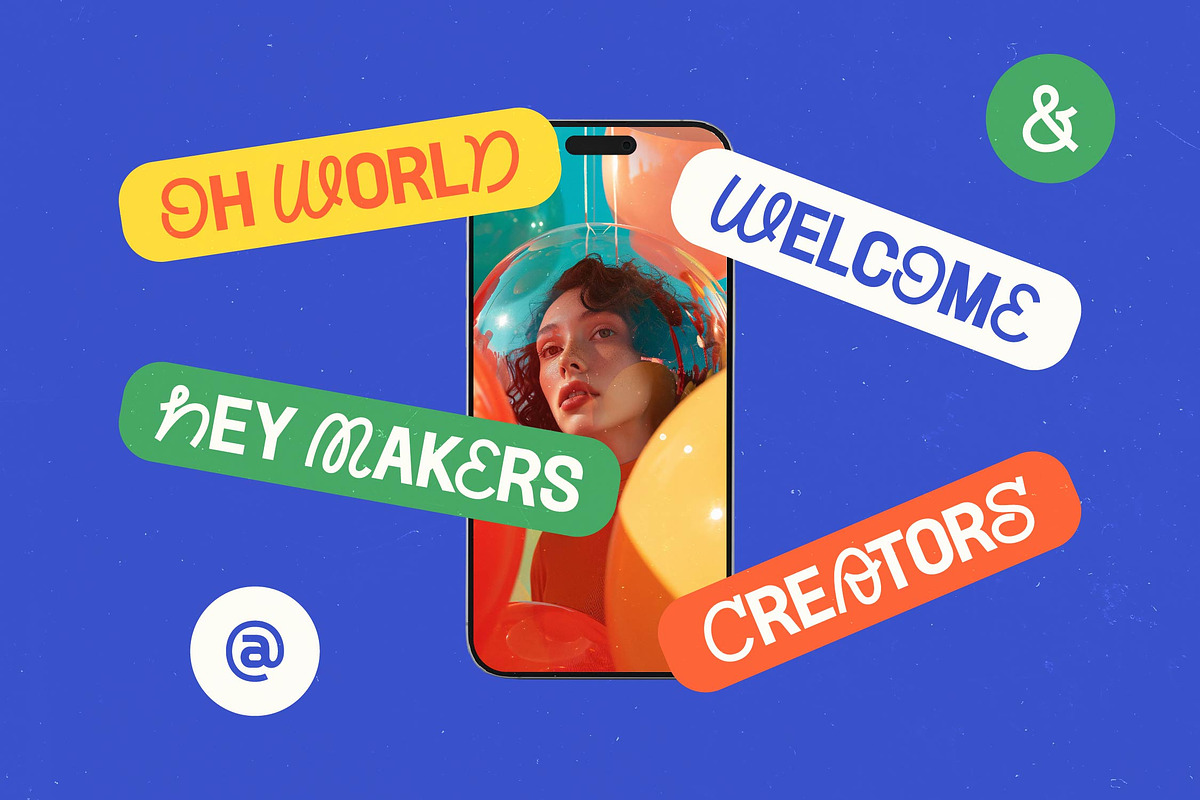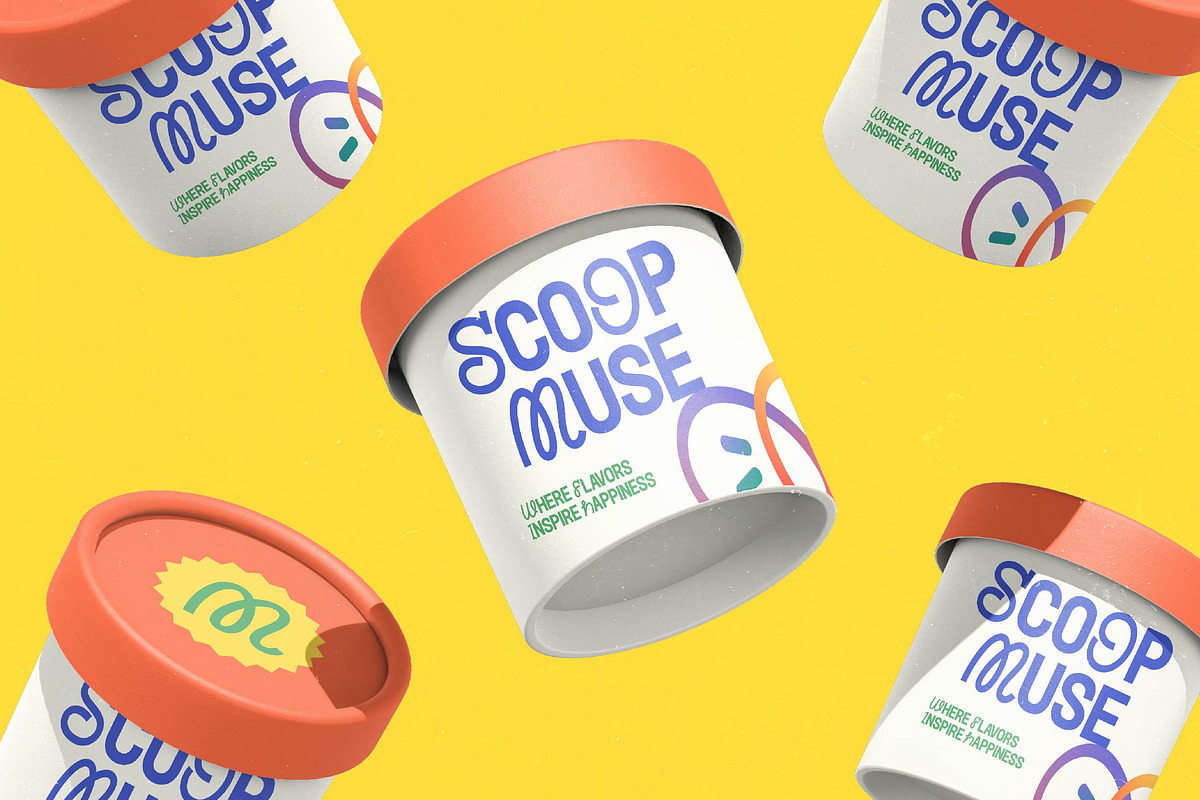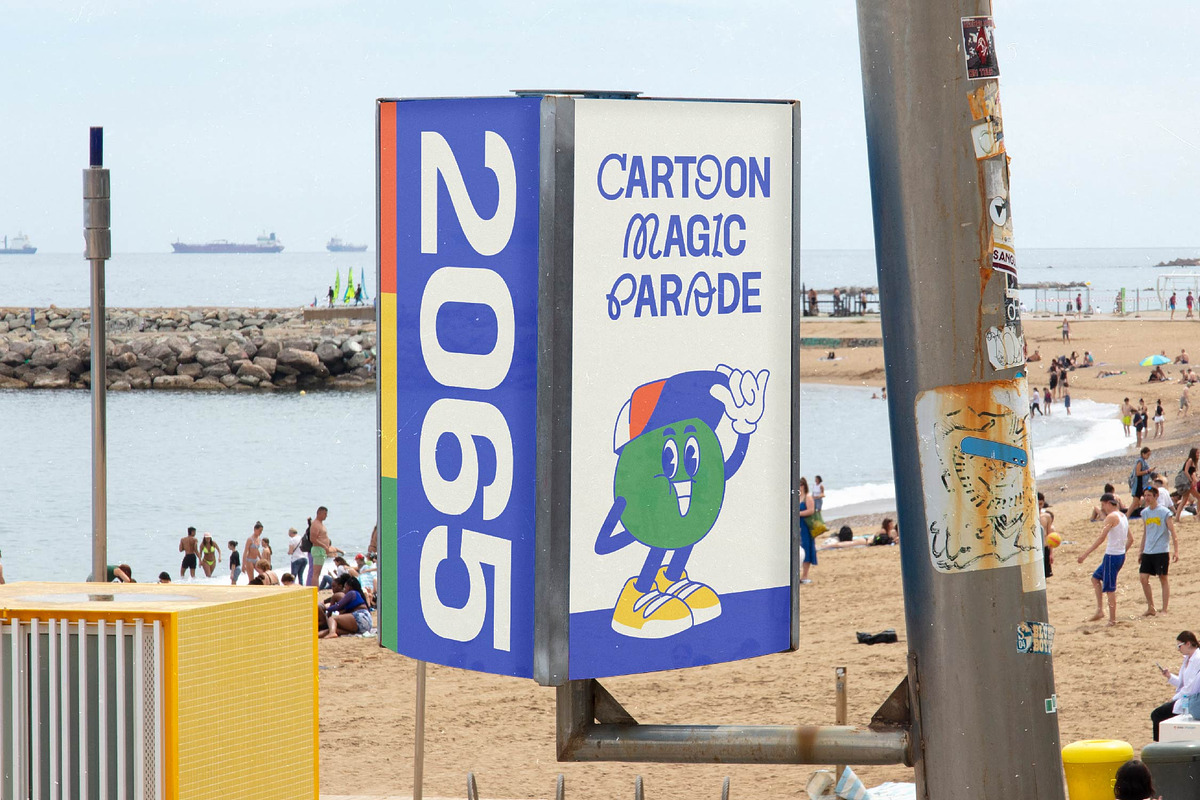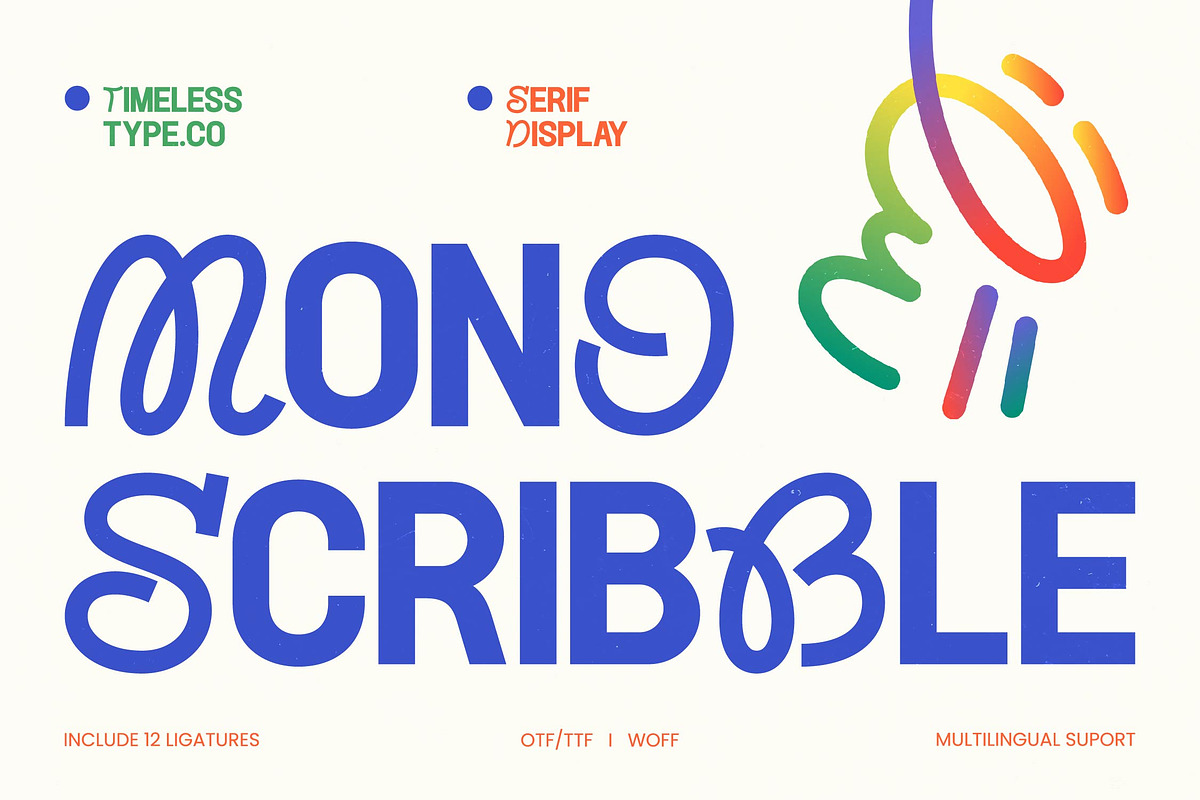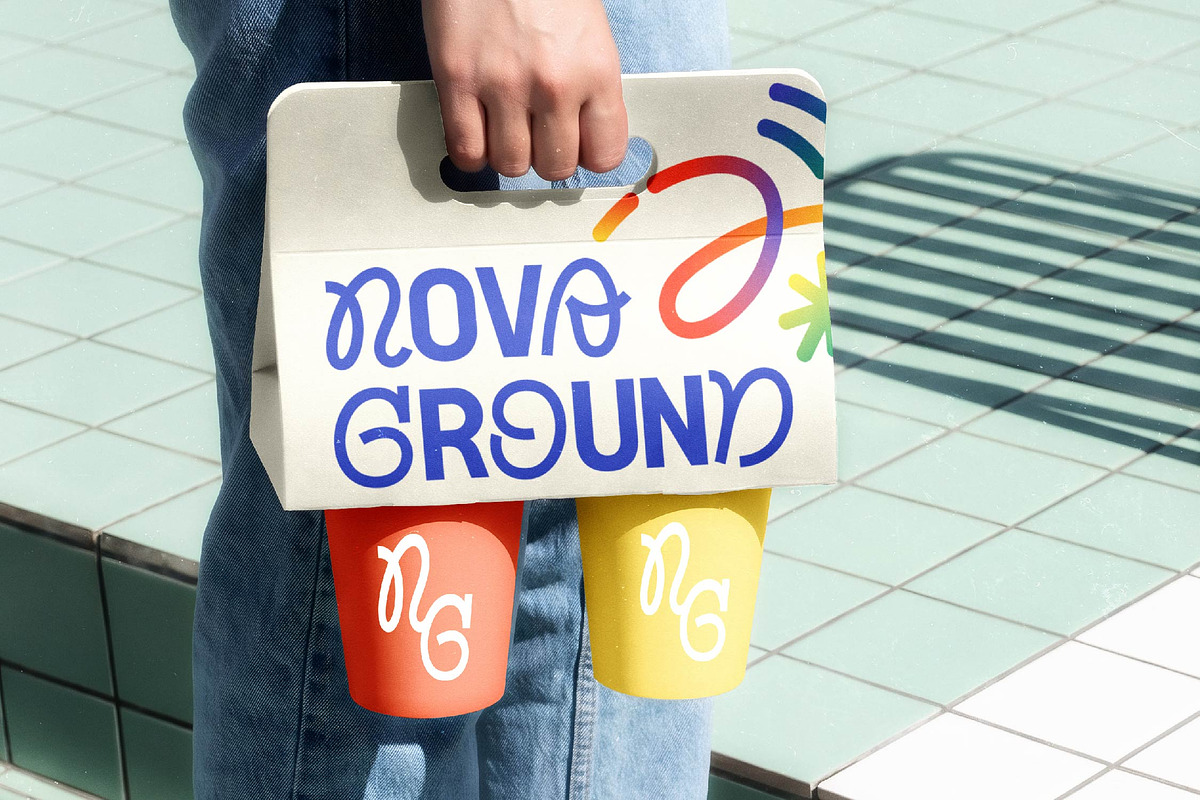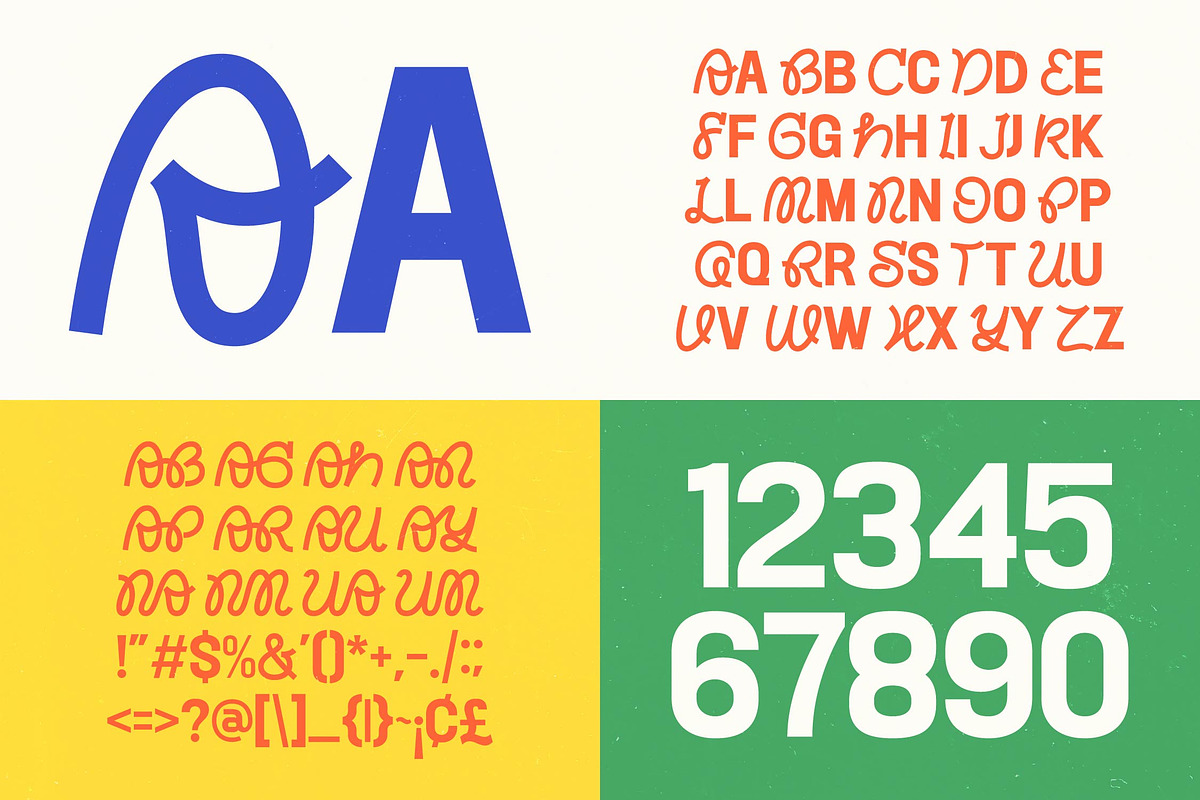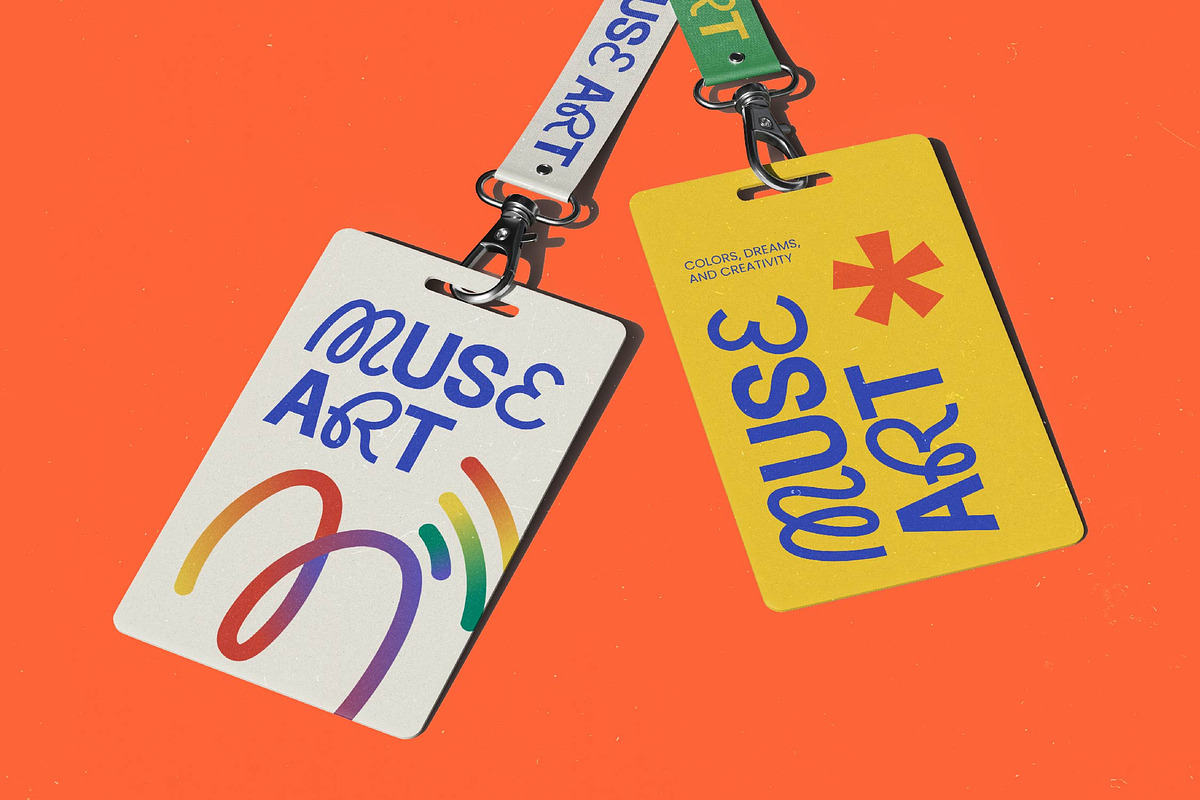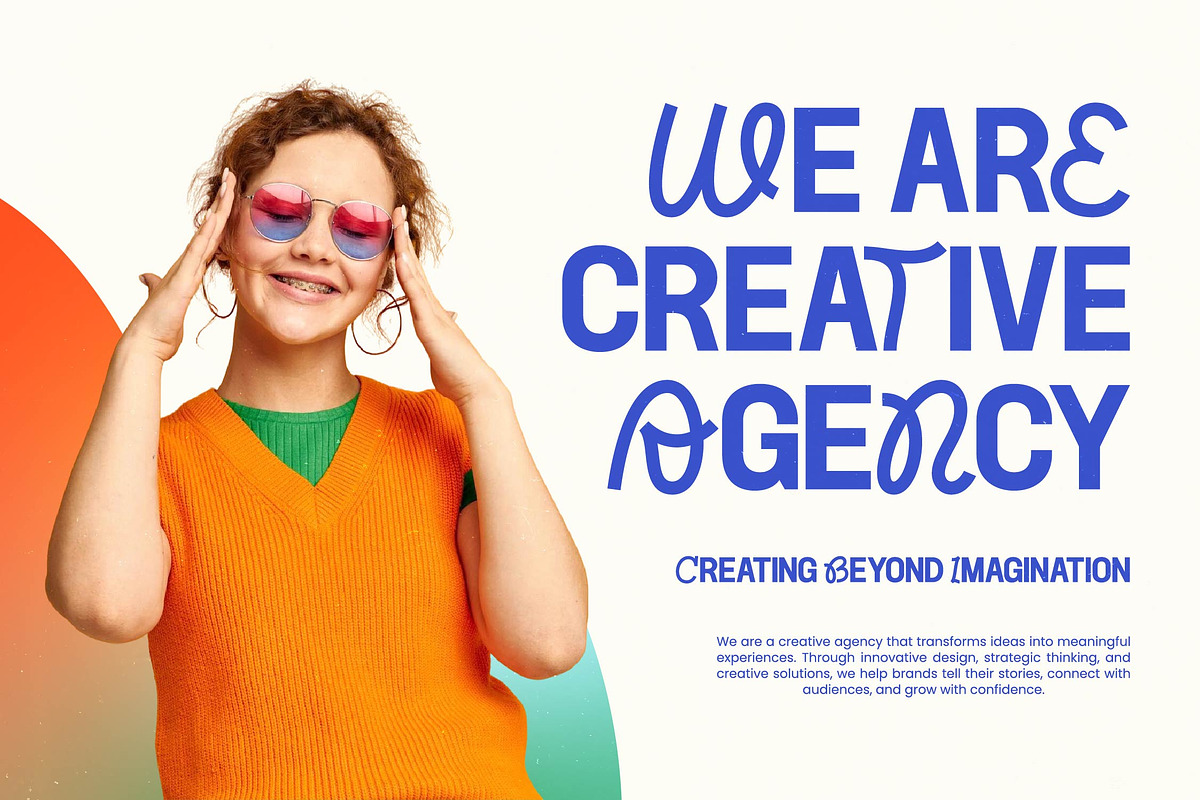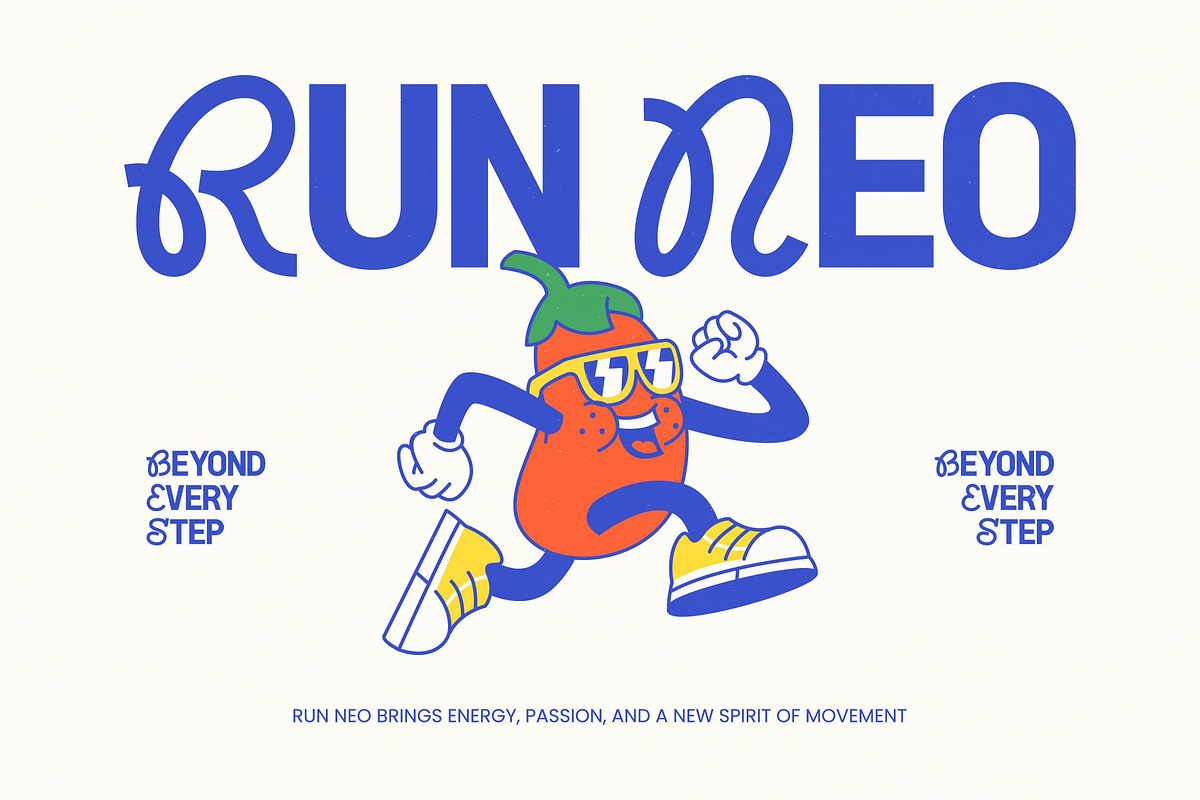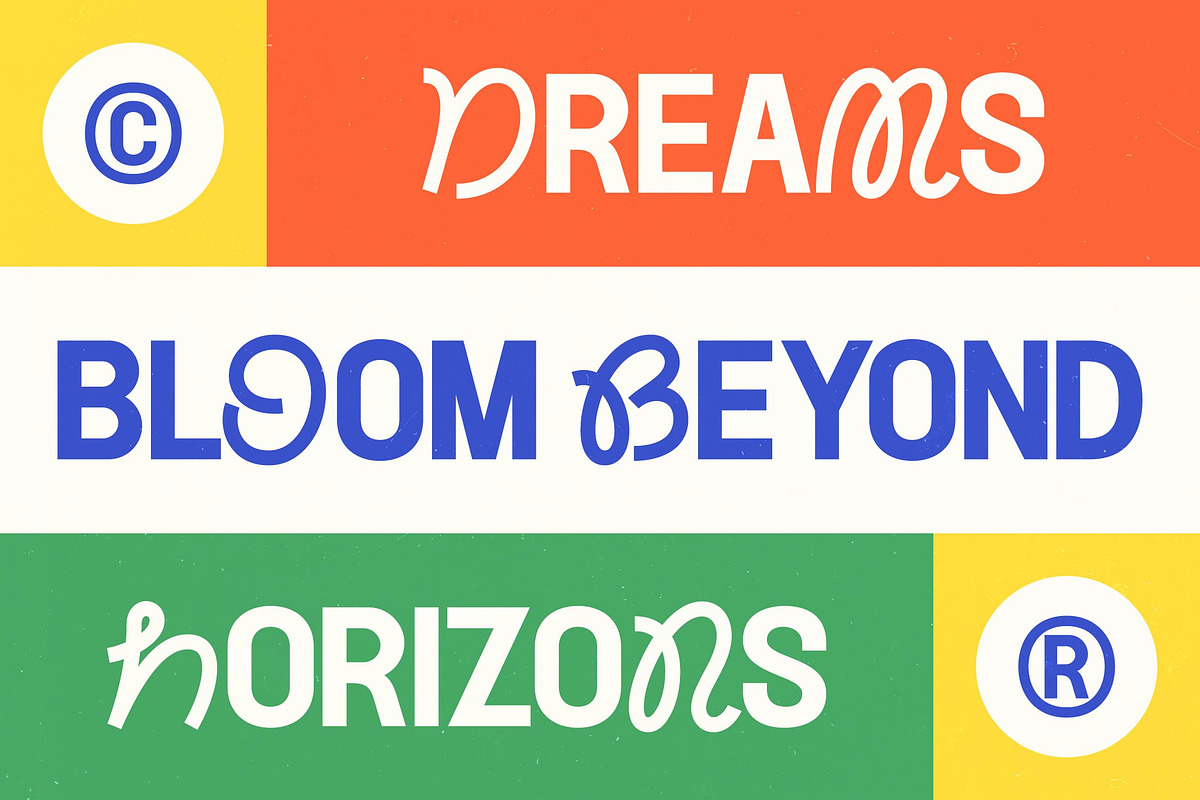
Mono Scribble Experimental Serif
**Mono Scribble - Experimental Serif Display , **Redefine the boundaries of modern typography with Mono Scribble - Experimental Serif Display, a typeface that masterfully blends an avant-garde aesthetic with functional design. This experimental serif captures the essence of contemporary art through its unique fusion of monolinear scribbles and bold display structures. By challenging traditional type conventions, Mono Scribble - Experimental Serif Display offers a distinctive visual language that ensures your message stands out in a crowded digital landscape.
Engineered for the global creative stage, this font provides the technical robustness required for high-stakes commercial projects. With its extensive multilingual support, Mono Scribble - Experimental Serif Display adapts seamlessly across global markets, making it incredibly versatile for international projects. Whether you are working on digital interfaces or print media, the inclusion of professional file formats ensures a smooth workflow for every designer.
Experience unparalleled creative freedom with the 12 unique ligatures that add a custom, hand-crafted feel to every word. The dynamic letterforms within Mono Scribble - Experimental Serif Display create a rhythmic flow, balancing playful loops with architectural slab serifs. This high-contrast design is optimized for maximum legibility at large scales, making it an essential tool for creators who demand visual impact and sophisticated flair.
This font is the perfect solution for a wide array of high-end applications including luxury branding, premium packaging, and editorial design. It is ideal for fashion magazines, art exhibition posters, and innovative social media marketing campaigns that require a bold, authoritative voice. By choosing Mono Scribble - Experimental Serif Display, you are investing in a timeless asset that elevates your brand identity to a world-class level.